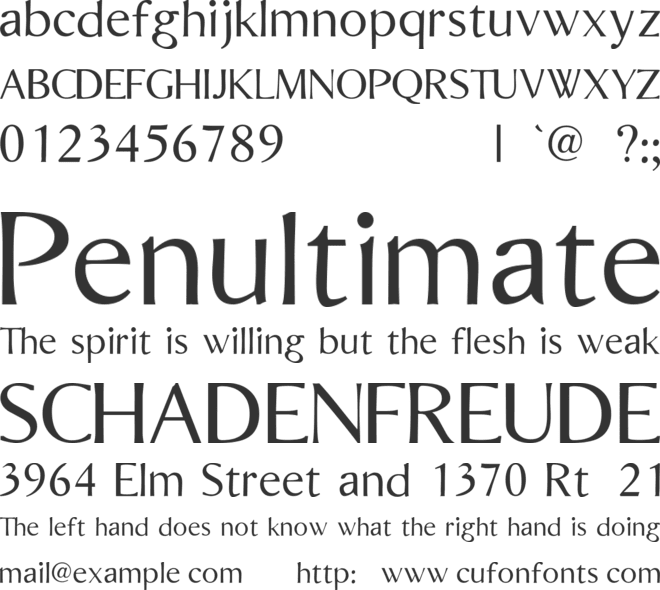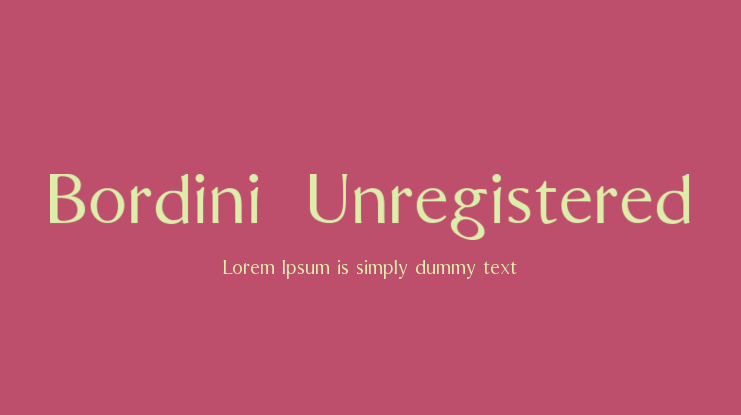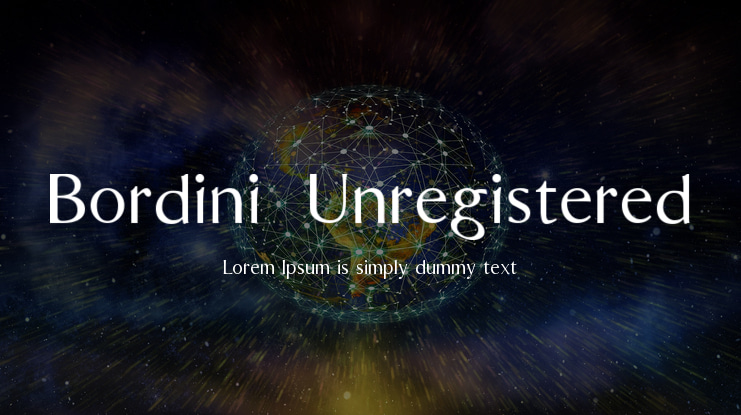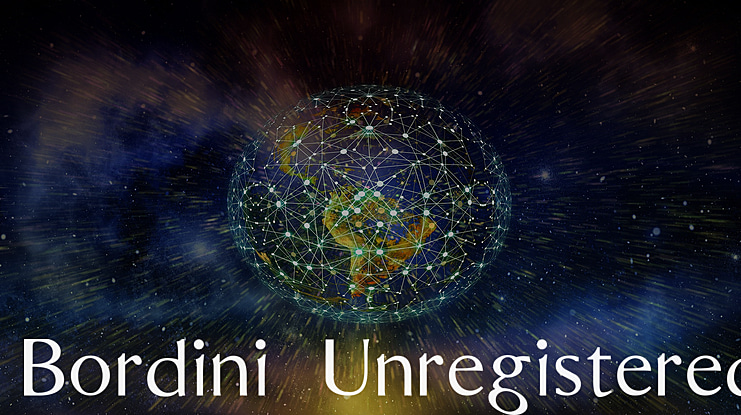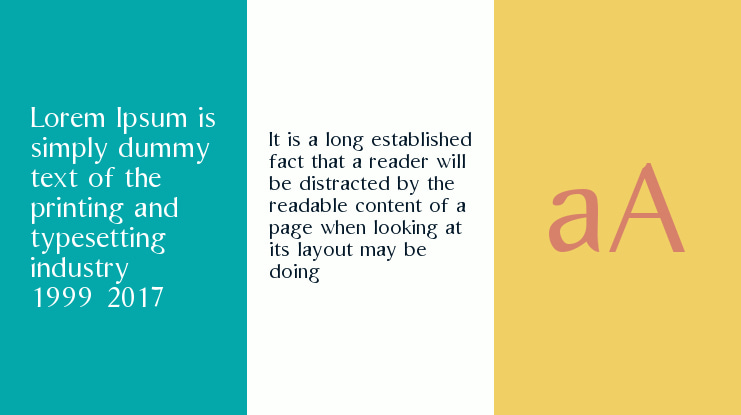
Bordini (Unregistered) Font
Bordini is a very nice sans-serif font, but with heavies and lights, quite elegant. Can replace Helvetica, with a special touch